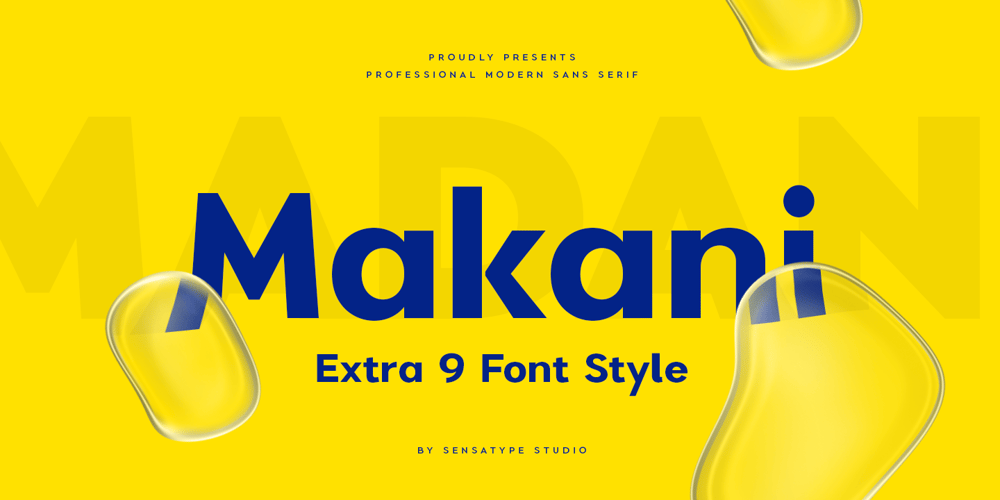
Makani Font Family was designed by Zamroni Hamzah and published by Sensatype Studio. Makani contains 9 styles and family package options. Makani is a sans serif font family with modern, corporate, elegant, unique and classy-look. This font crafted specials for logo design projects, ready to use on Logo, Branding, Magazine, Social Media, and Many more that needs modern touches.Makani is also included full set of: uppercase and lowercase letters 9 weights multilingual characters numerals punctuation Wish you enjoy our font. ๐